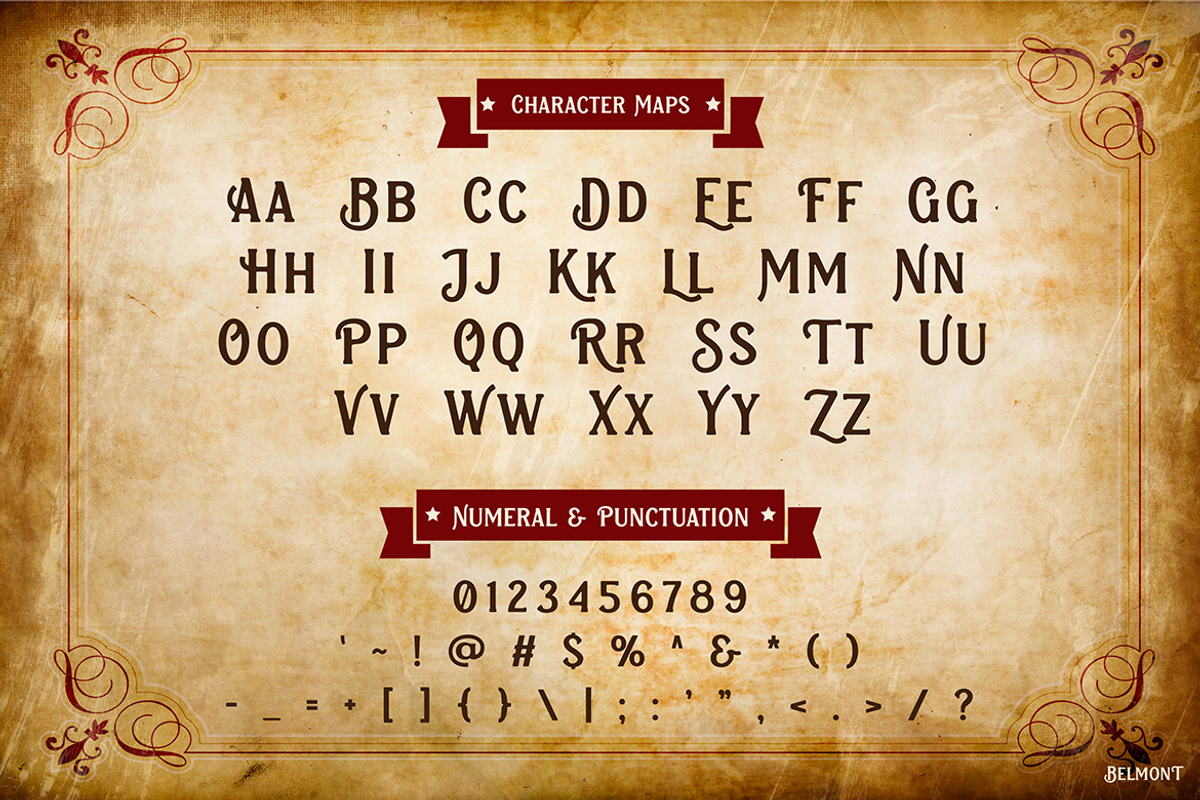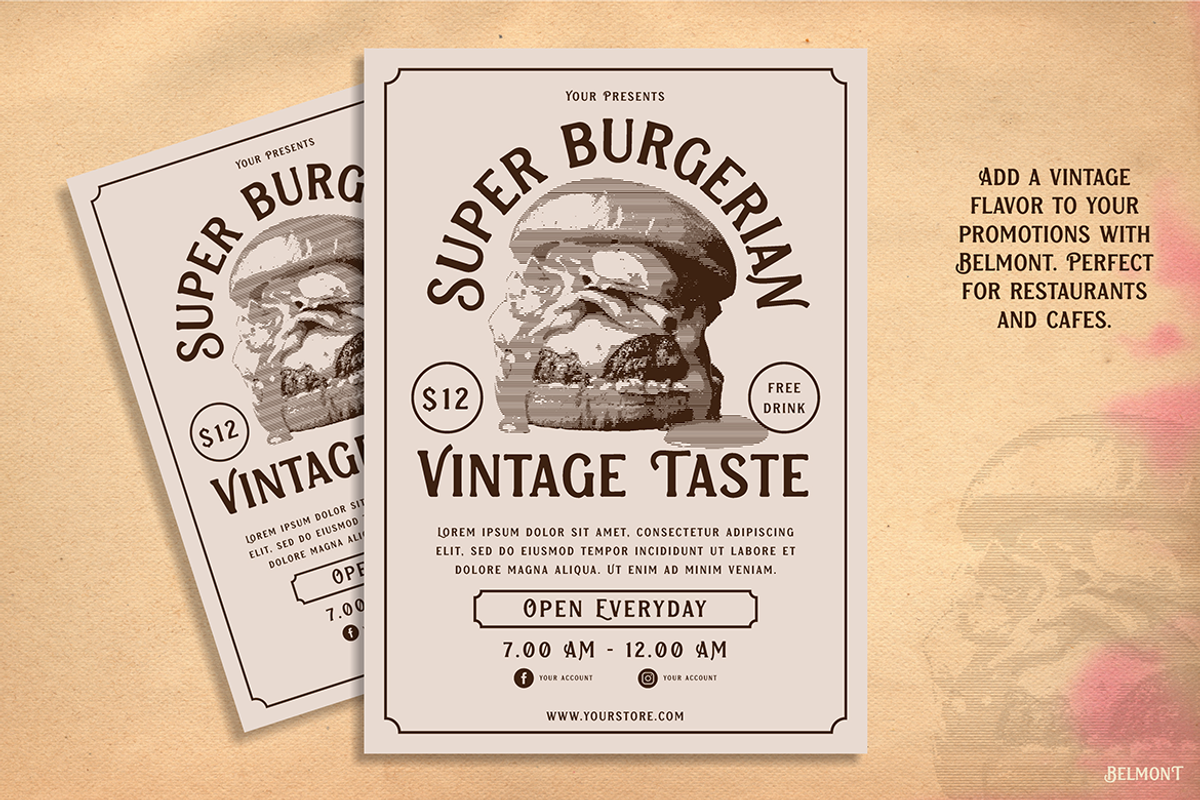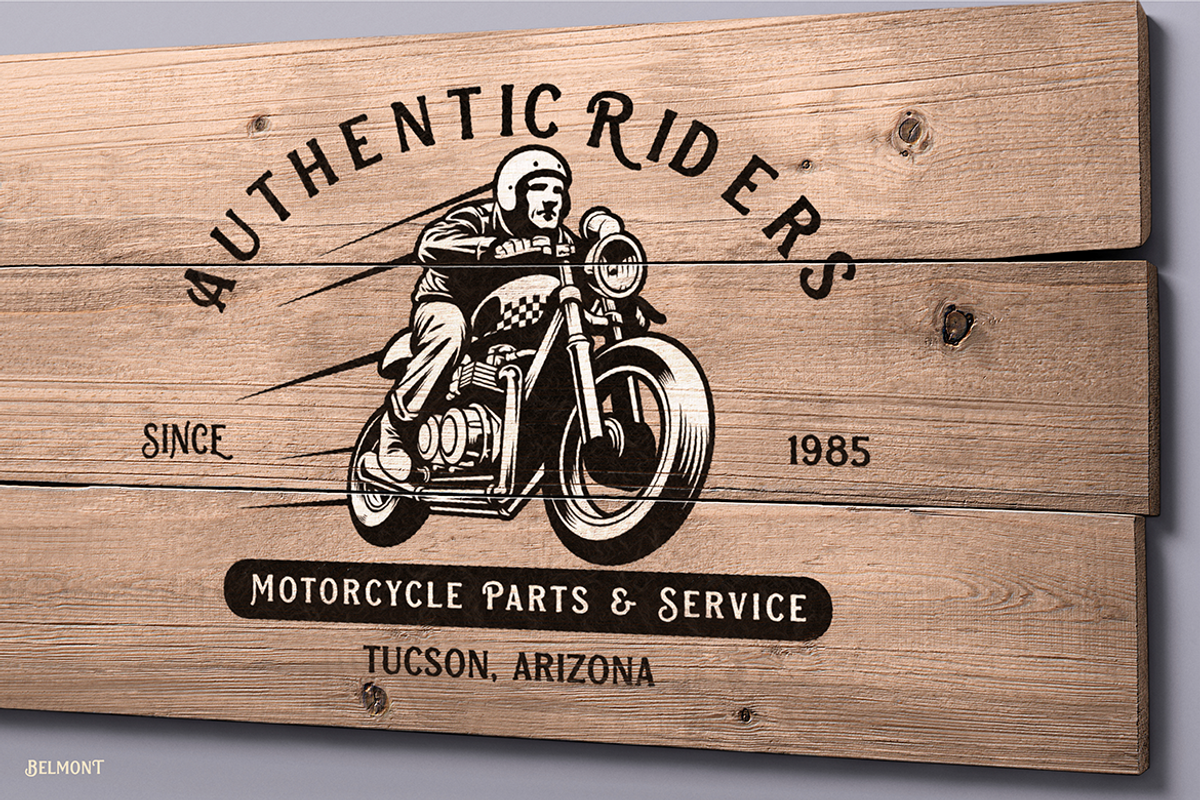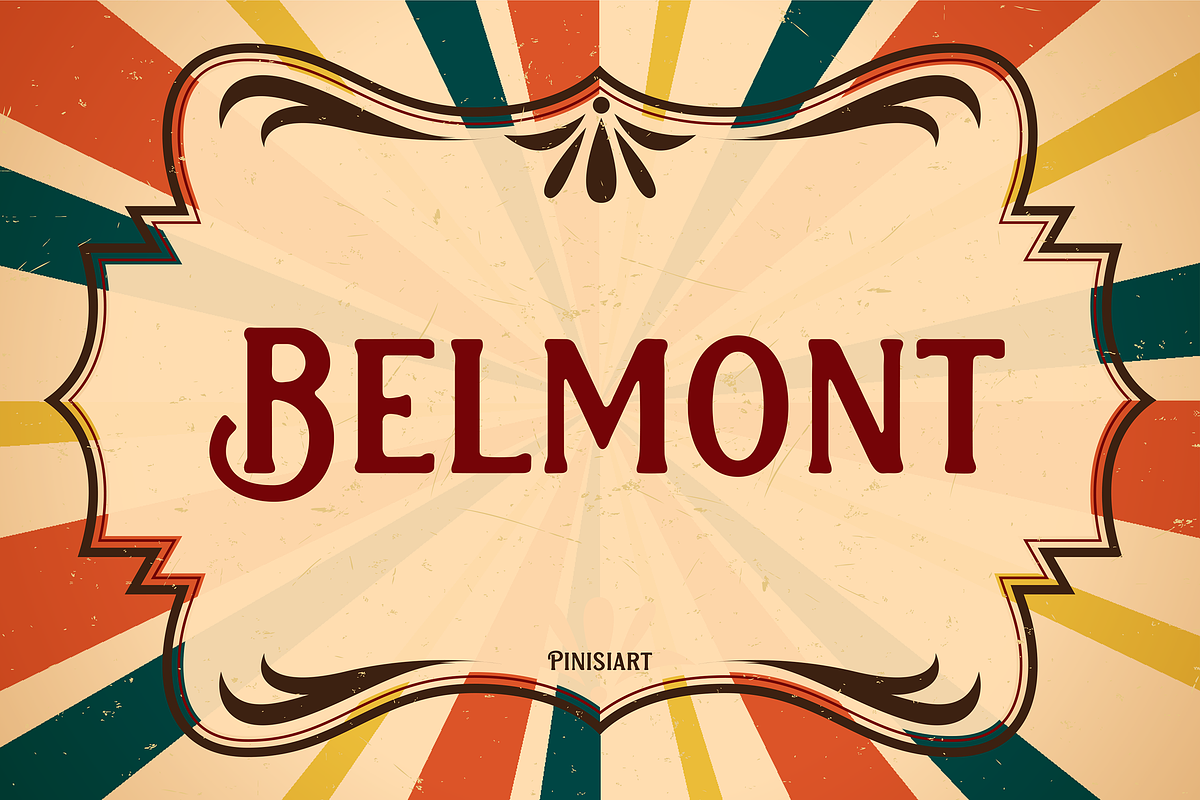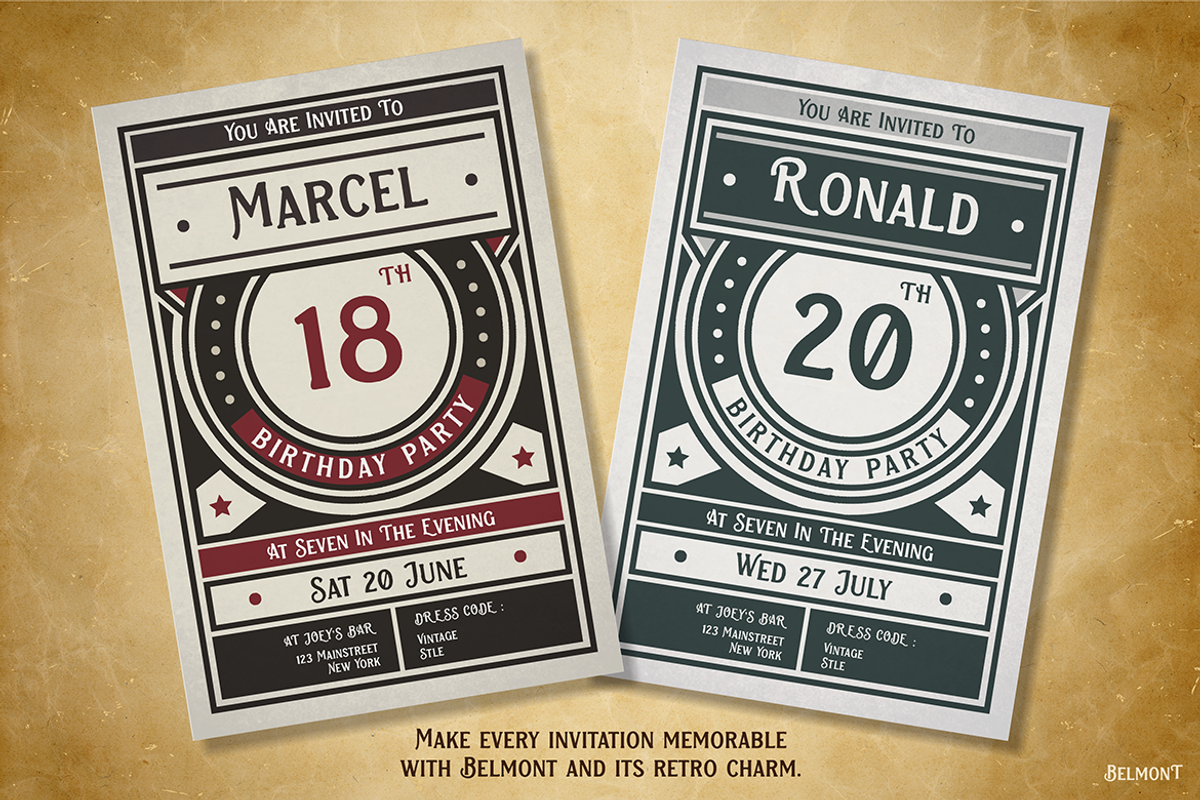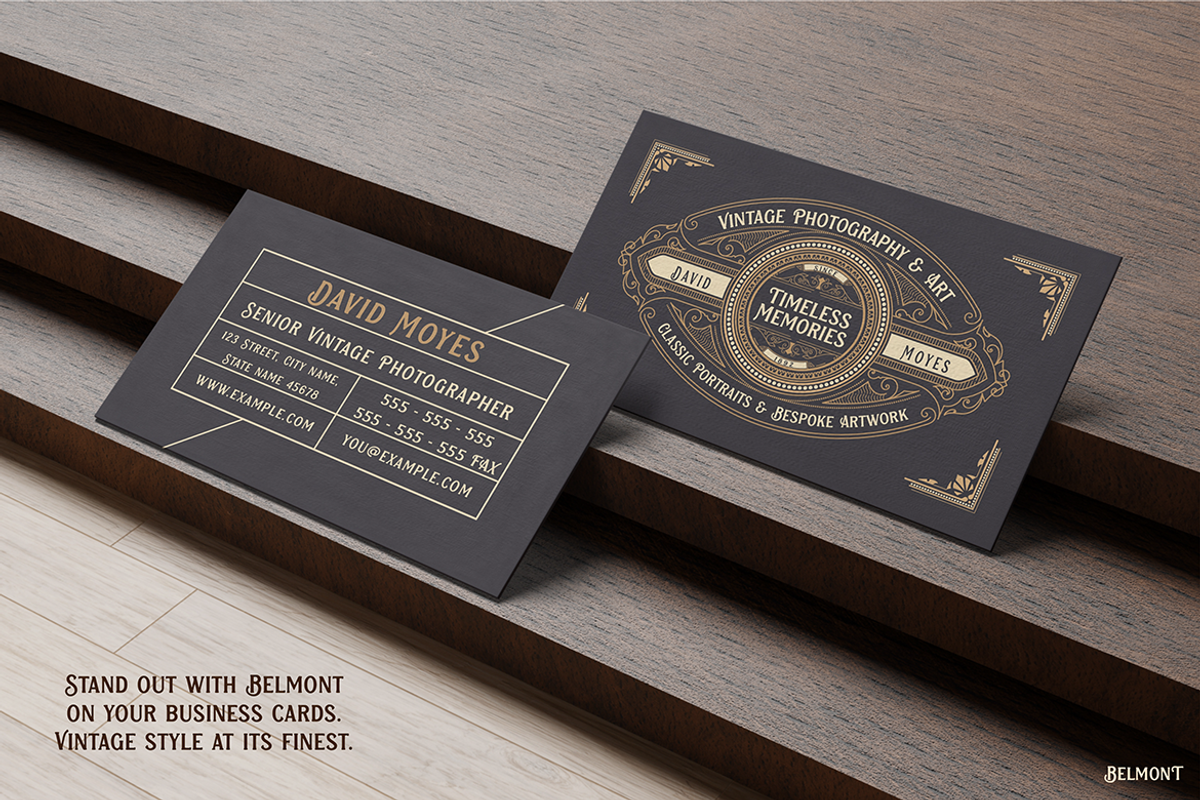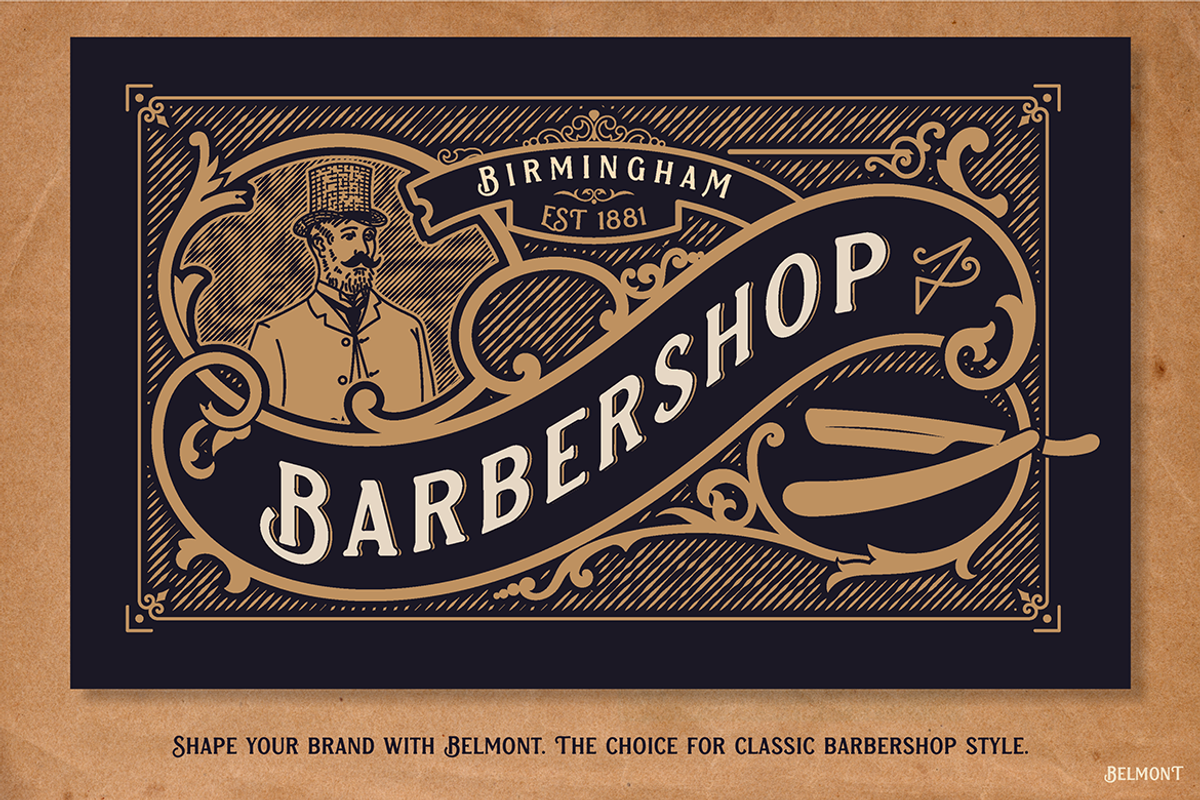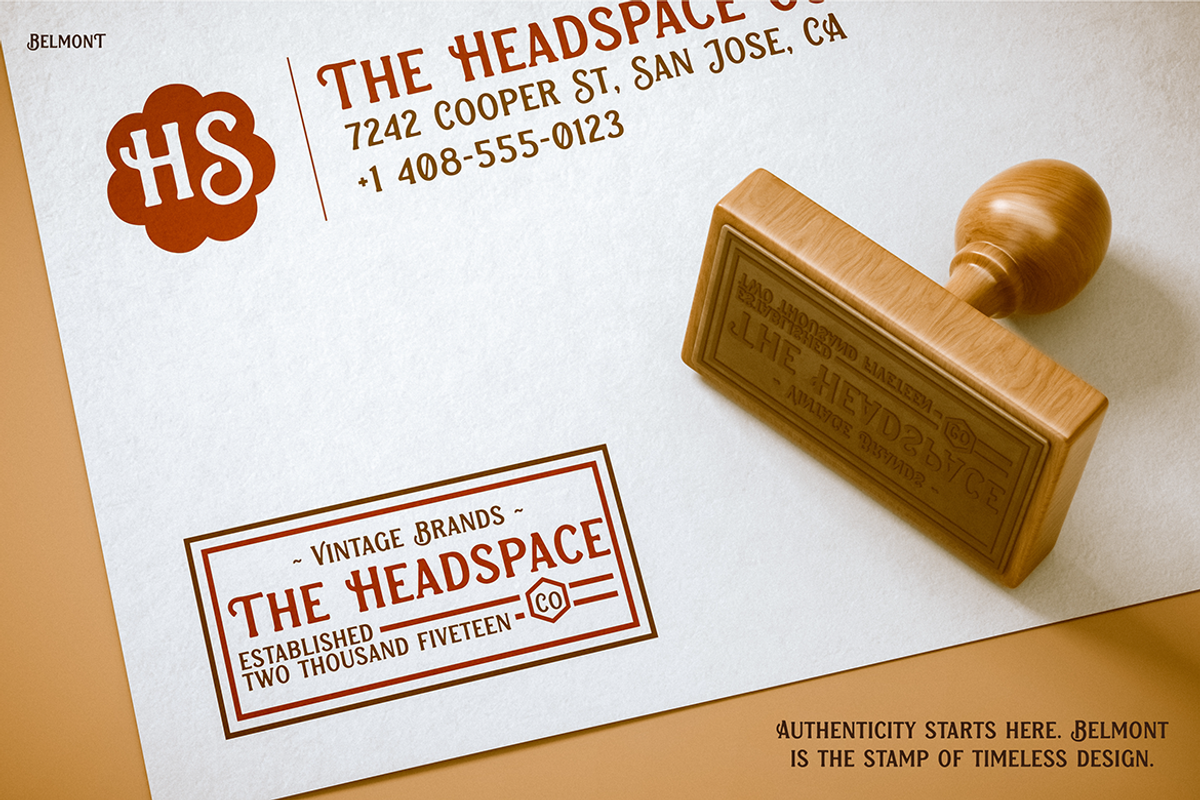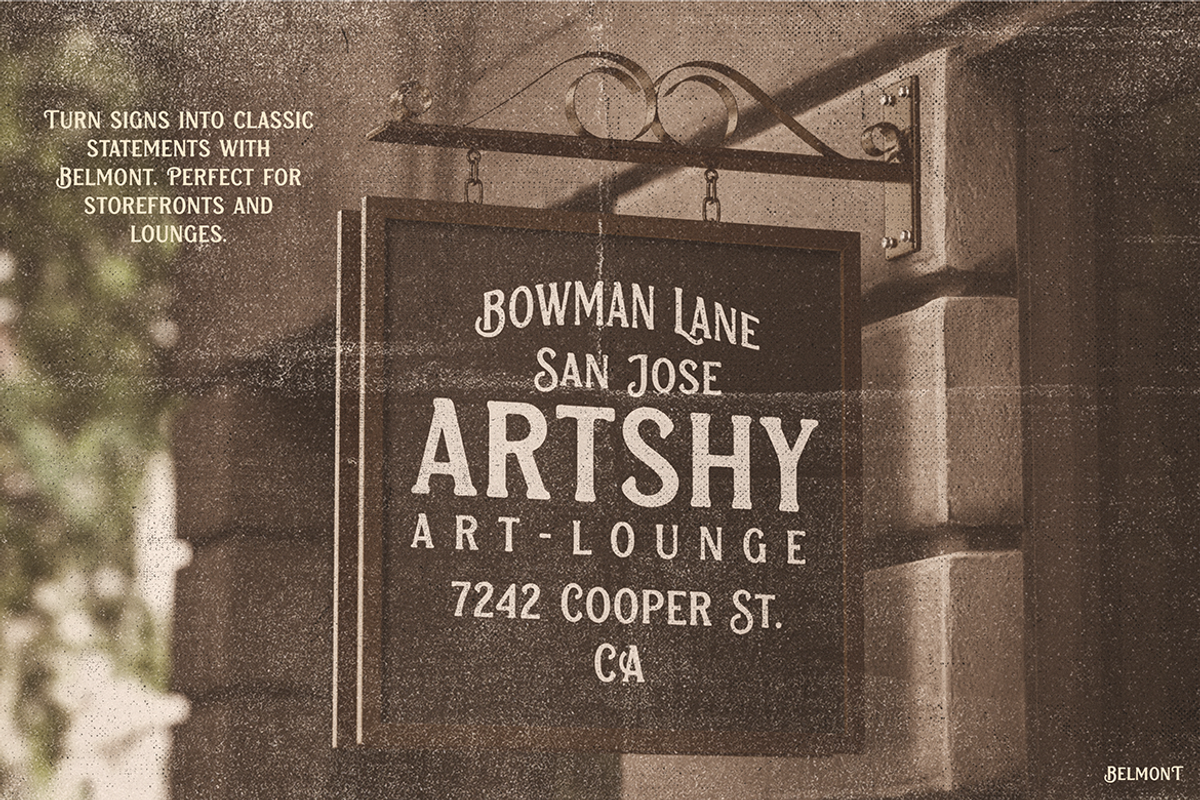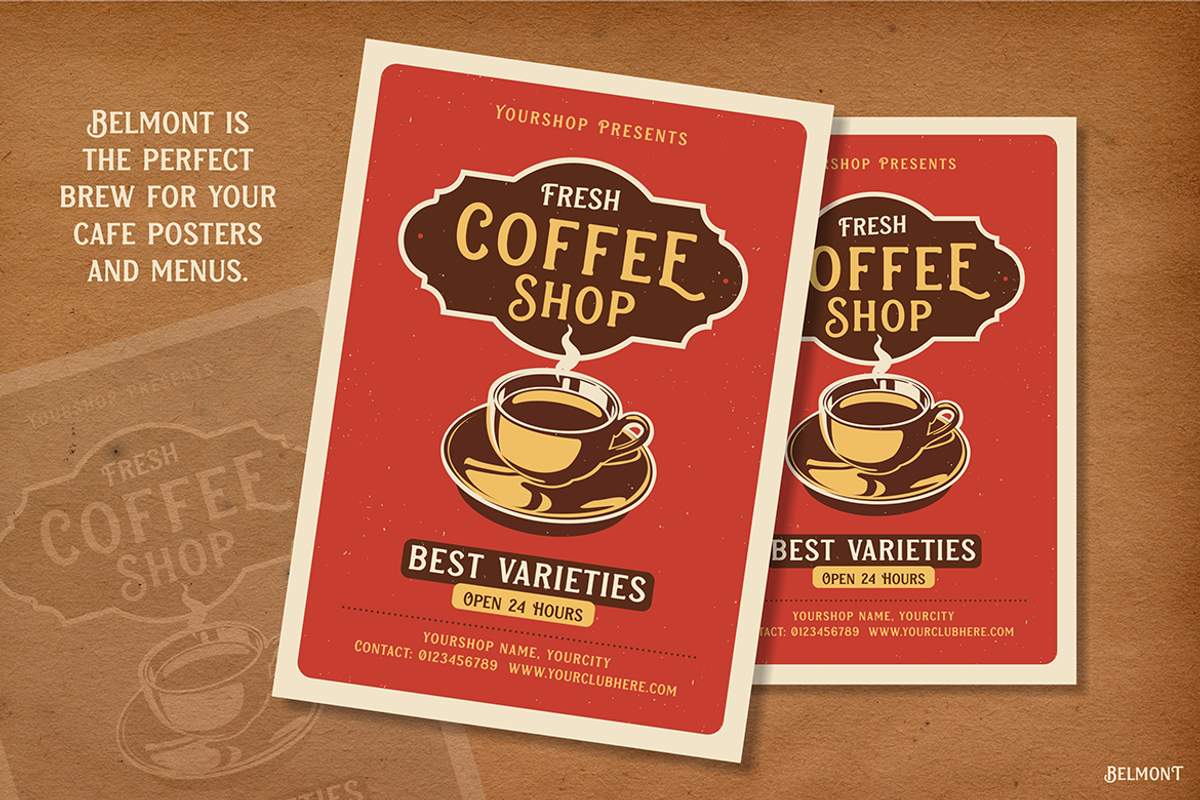
BELMONT
Vintage Font Belmont radiates classic charm and timeless sophistication, making it the perfect choice for those seeking a nostalgic yet refined aesthetic. With its bold curves and intricate details, this font effortlessly evokes the craftsmanship of bygone eras. Moreover, it strikes the ideal balance between elegance and strength, ensuring your designs make a memorable impact.
Not only does Belmont deliver a traditional appeal, but it also offers remarkable versatility. You can confidently use it across a variety of mediums, whether for print or digital platforms. For instance, its bold letterforms maintain clarity and charm, ensuring effective readability in headlines, logos, and decorative graphics. Furthermore, its vintage flair effortlessly enhances layouts, allowing designers to create striking compositions that resonate with audiences.
Additionally, Belmont adapts to different design needs, depending on context and color usage. Whether you’re aiming for a classy and sophisticated tone or a bold and adventurous vibe, this font will help you achieve the desired effect. Consequently, it suits a wide range of projects, from event posters to product labels, ensuring your designs remain timeless and impactful.